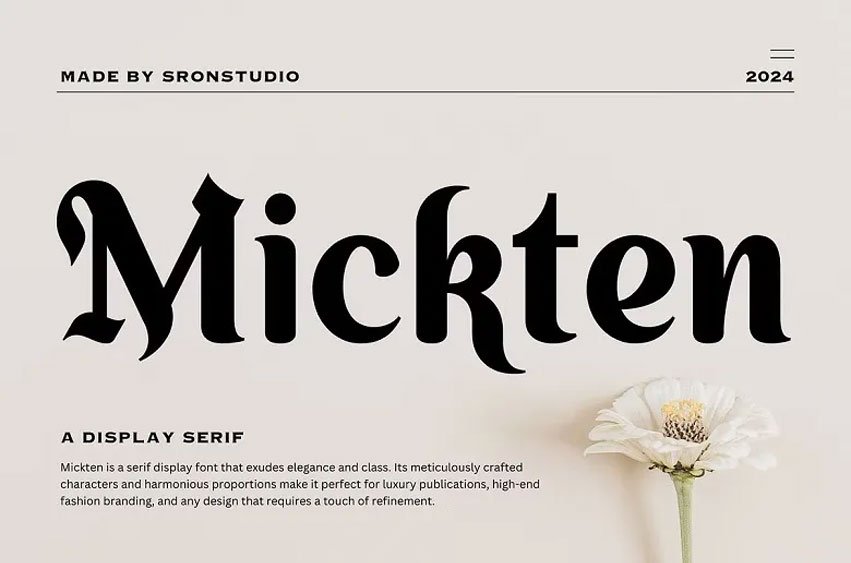
Mickten Font has a traditional look, yet it has a very contemporary feel to it. Its sturdy and clear serifs make it suitable for usage in headings, billboards, posters and logos that need to capture people’s attention. When applied to a magazine cover or a book title, or even a logo,
“Mickten” means professionalism and reliability. This font has certain style of characters’ appearance that gives it elegance that will be ideal for use by designers who want their work to be noticed.